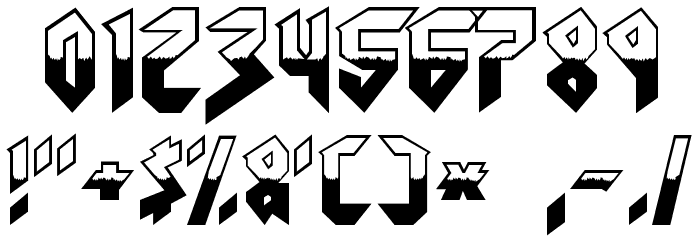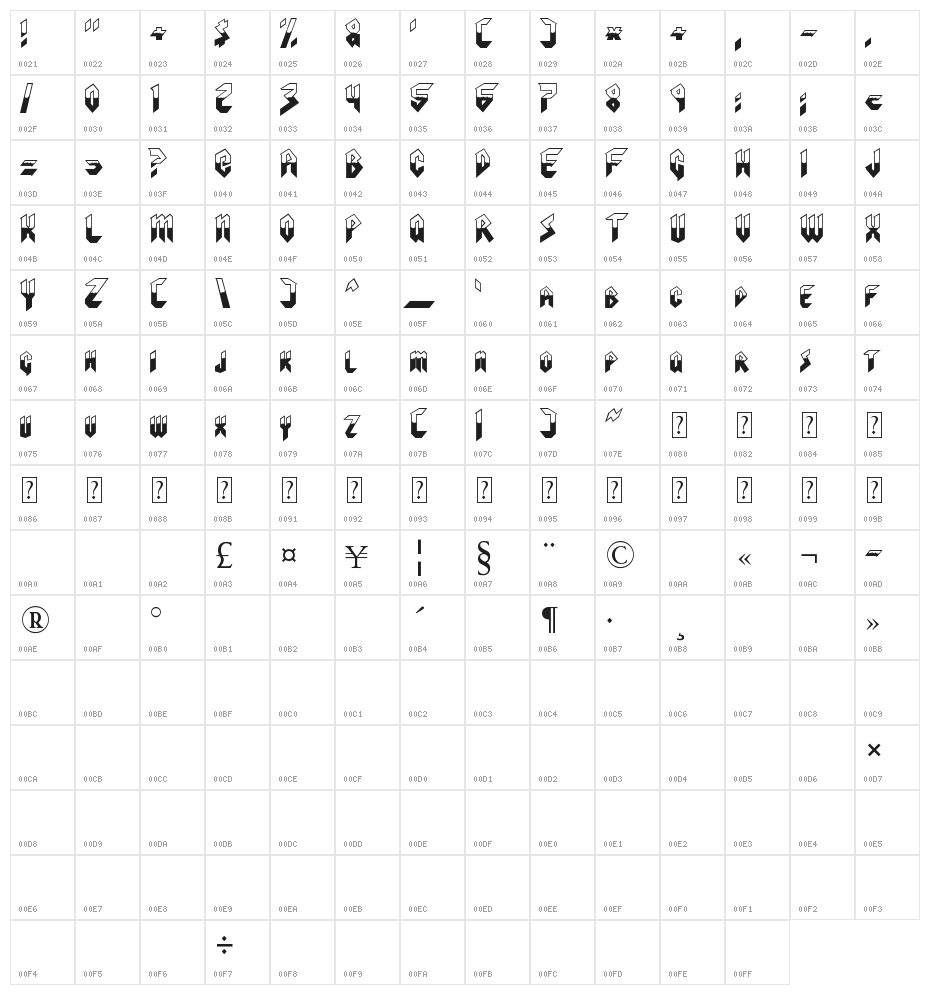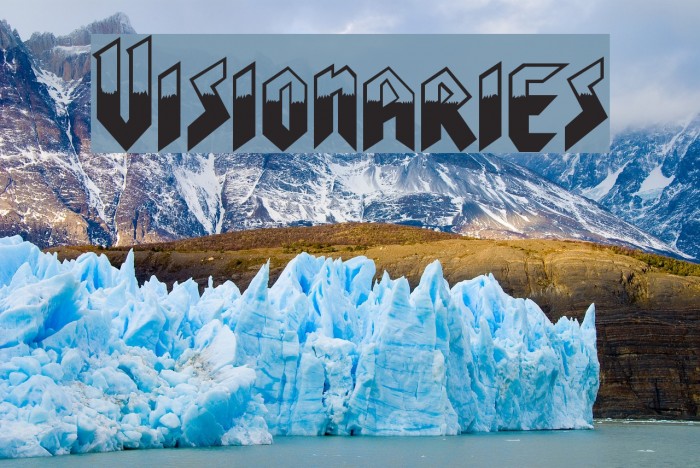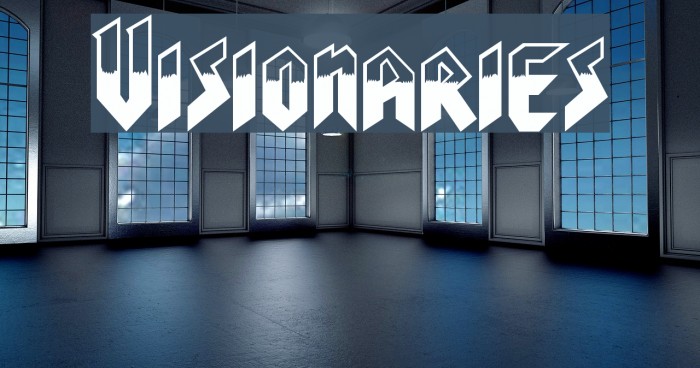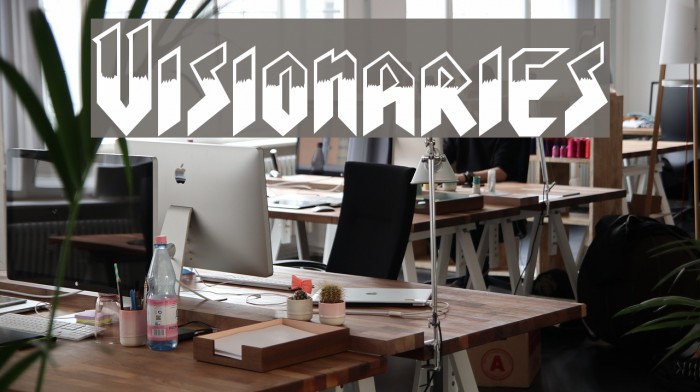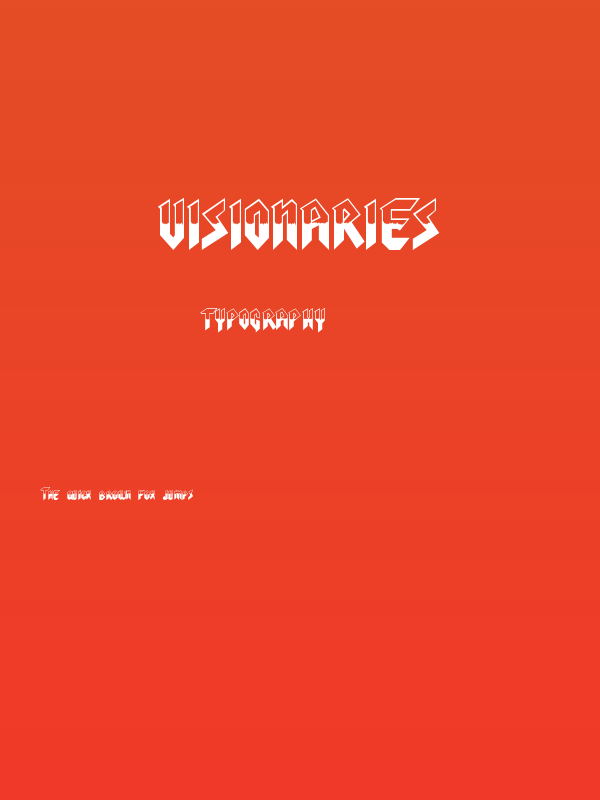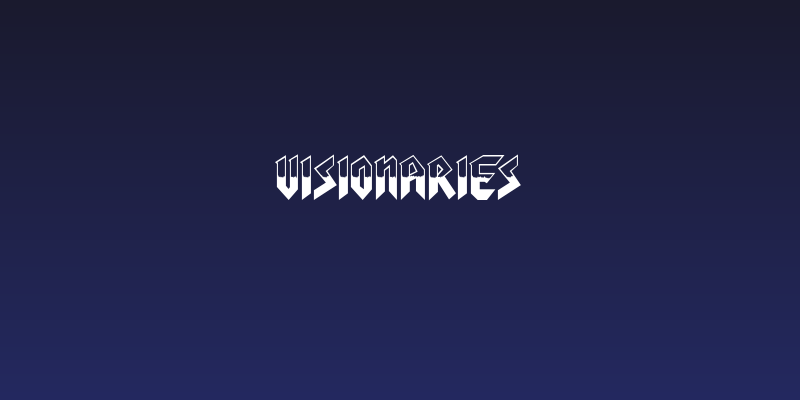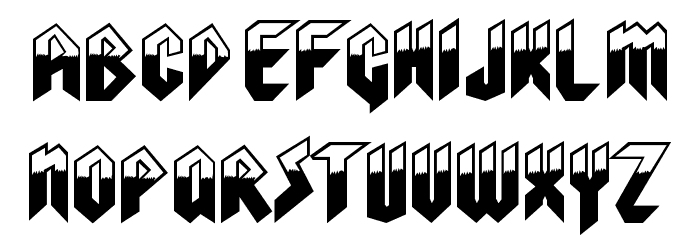
Visionaries Font
Visionaries Description
This font features a bold, angular design with a distinct three-dimensional effect. The characters are heavily stylized, with sharp edges and a shadow-like drop that gives them a dynamic, futuristic appearance. The uppercase and lowercase letters maintain a consistent geometric form, while the numbers and special characters follow the same bold and edgy style. The font's unique design makes it stand out, ideal for projects that require a modern and impactful visual statement.
| Overall Style | Futuristic, Modern |
| Proposed Projects | Ideal for video game titles, sci-fi movie posters, tech branding, and edgy graphic designs. |